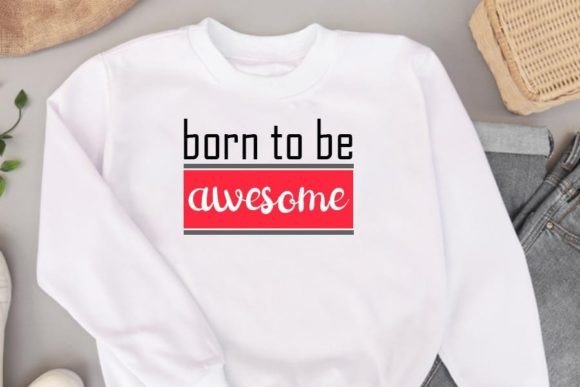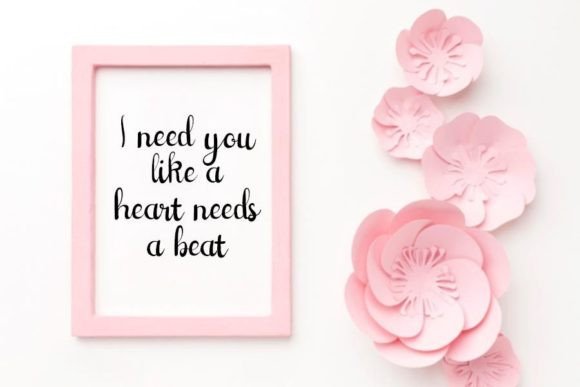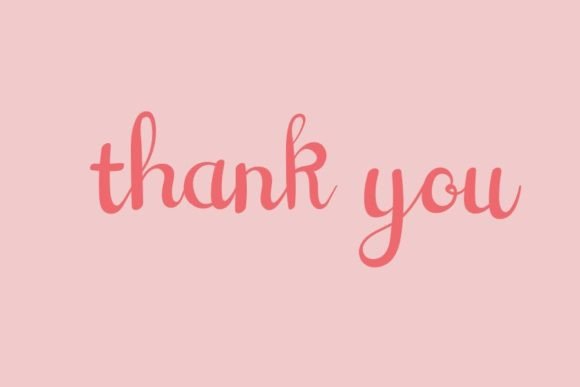
Liberty Font – Free Download
Introduction to Liberty Font
Liberty is a luxury handwritten font, described by an elegant touch, perfect for your favorite projects.
| 📌 Product Name | Liberty Font |
| 👤 Author | Snowman Studio |
Key Features of Liberty Font
Why Choose Liberty Font?